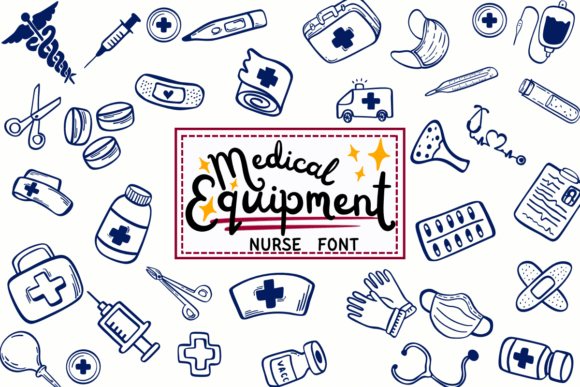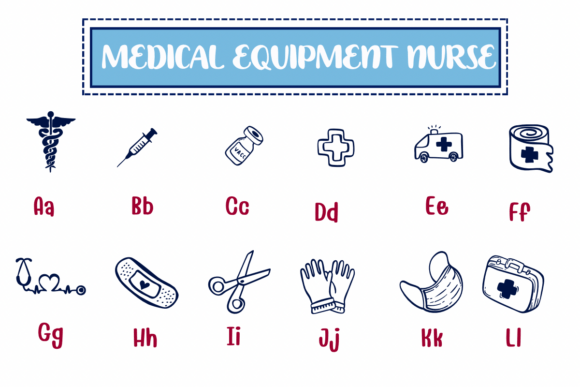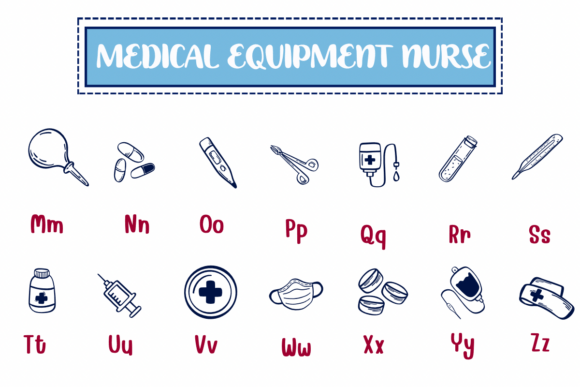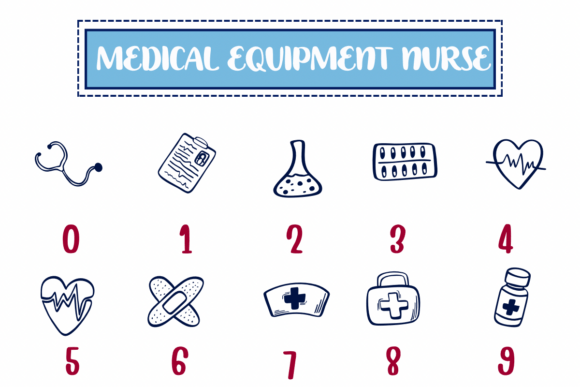
Medical Equipment Nurse Font
About the Medical Equipment Nurse Font
The Medical Equipment Nurse Font offers a perfect balance of form and function for your design needs. Medical Equipment Nurse Font
is a playful dingbat and display font combo featuring cute, hand-drawn medical icons and a cheerful handwritten typeface. It’s ideal for healthcare-themed designs, nursing graphics, health awareness posters, pediatric care branding, and educational printables. With its charming doodle-style elements like syringes, pills, and stethoscopes, this font brings friendliness and clarity to medical messaging.
This font’s playful nature makes it perfect for headlines, short text blocks on posters or social media graphics, and branding elements for pediatric practices or children’s health initiatives. Avoid using it for body text or lengthy paragraphs; its informal style is unsuitable for large amounts of continuous reading.
Medical Equipment Nurse Font pairs well with clean sans-serif fonts like Open Sans for a balanced contrast, offering readability alongside the playful display elements. Alternatively, a more geometric sans-serif like Montserrat could create a modern, approachable feel. For a touch of sophistication, consider pairing it with a classic serif like Garamond for formal elements within a design.
The overall personality is friendly and approachable, conveying care and approachability, ideal for brands focusing on child health, family-oriented healthcare, or campaigns emphasizing a positive and less intimidating medical experience.
Medical Equipment Nurse Font Usage Examples
Medical Equipment Nurse Font Example